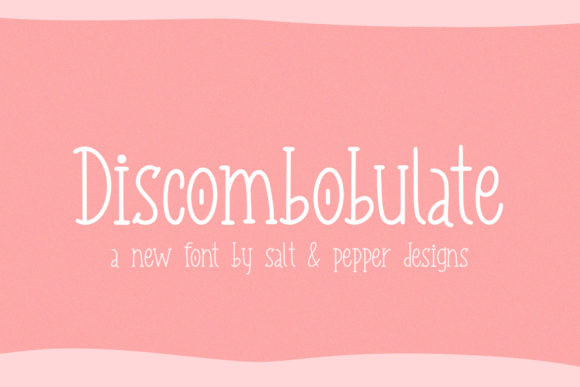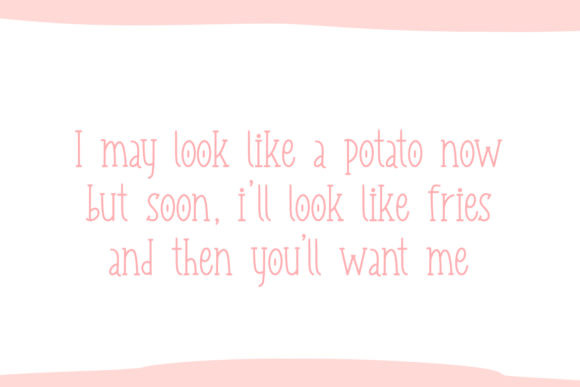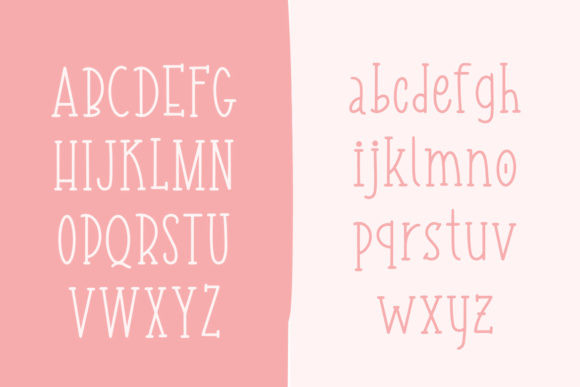
Discombobulate Font
Discombobulate is a simple and neat lettered display font. A little bit quirky, this font looks incredibly adept on a wide variety of contexts!